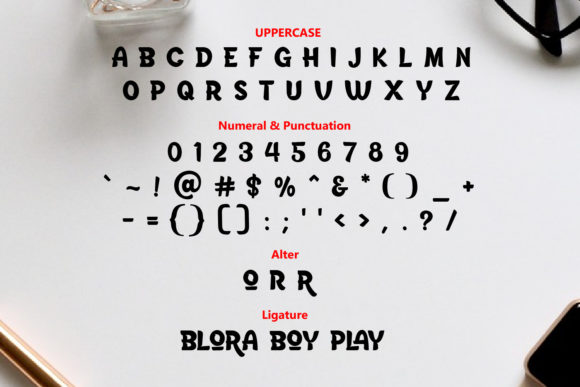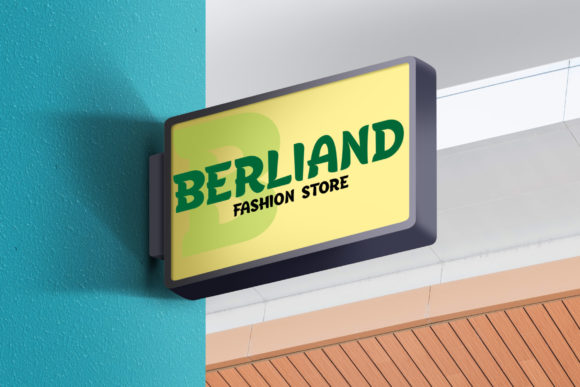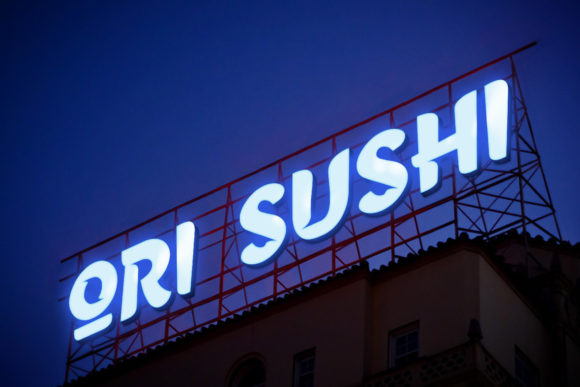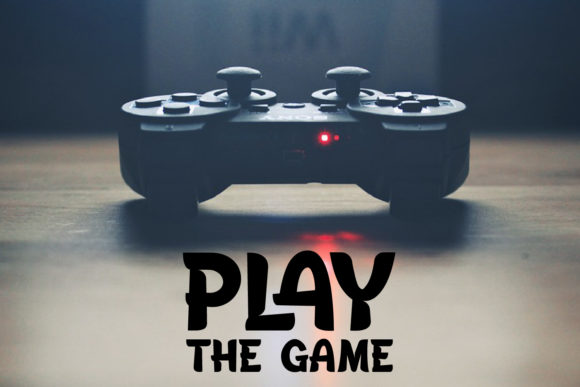
Blora Font
About Blora Font
Blora is a bold handwritten font, carefully handcrafted to become a true favorite. Its casual charm makes it appear wonderfully down-to-earth, readable and, ultimately, incredibly versatile. Blora will look outstanding in any context, whether it’s being used on busy backgrounds or as a standalone headline!